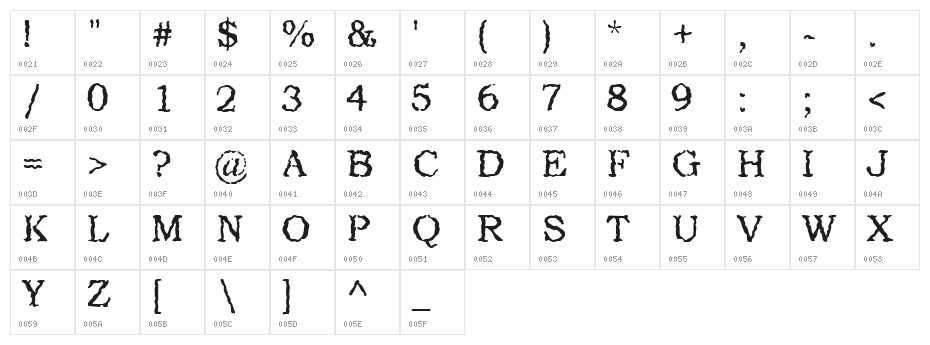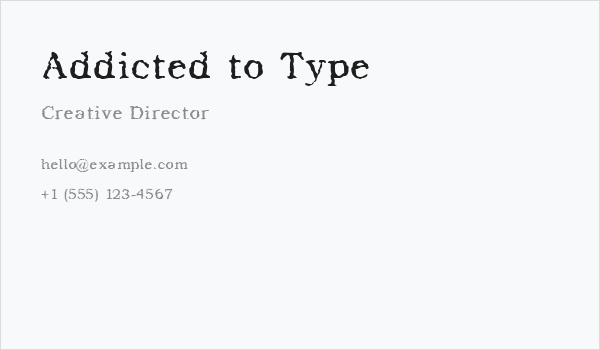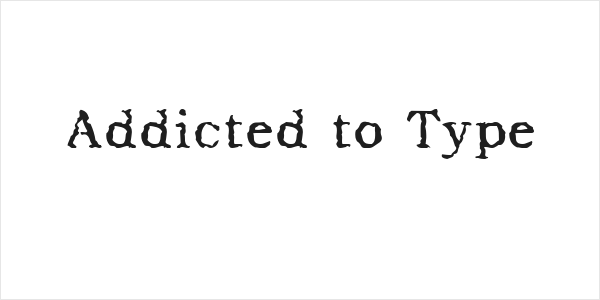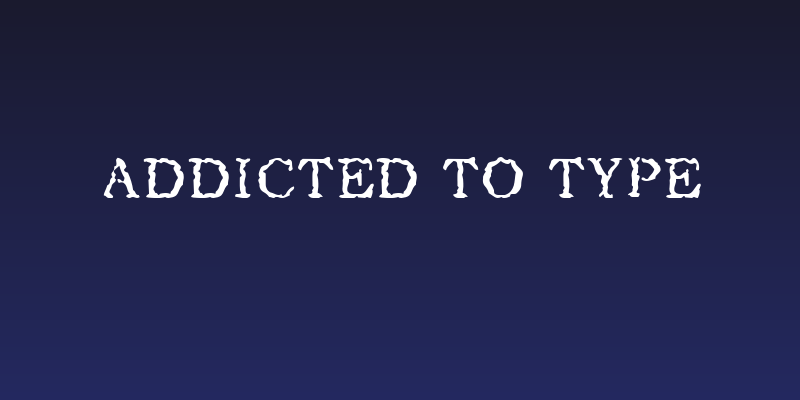
Addicted to Type Font
Addicted to Type Description
This font features a rugged, distressed style with irregular edges, giving it a hand-crafted, organic appearance. The uppercase and lowercase letters maintain a consistent height, while the numerals and special characters exhibit the same textured, worn look. The font's unique character is defined by its uneven strokes and rough outlines, making it stand out as a bold statement piece. Its distinct style is reminiscent of vintage typewriter fonts, yet with a modern twist that adds a touch of edginess. The font's overall design is both artistic and functional, suitable for projects that require a strong visual impact.
| Overall Style | Vintage, Artistic |
| Proposed Projects | Ideal for branding, poster design, album covers, and any project requiring a bold, artistic touch. |